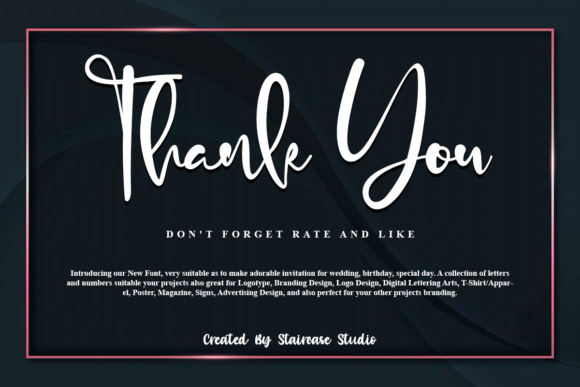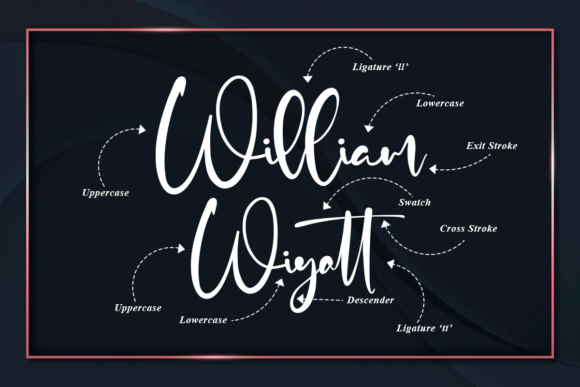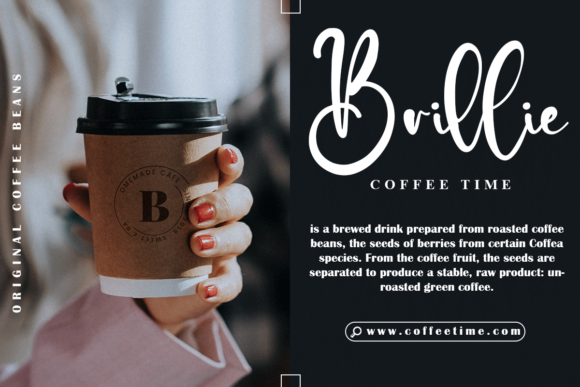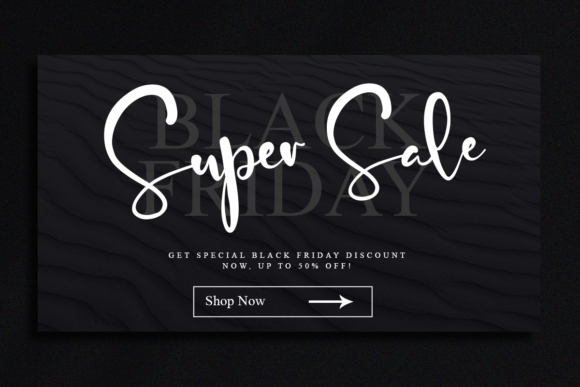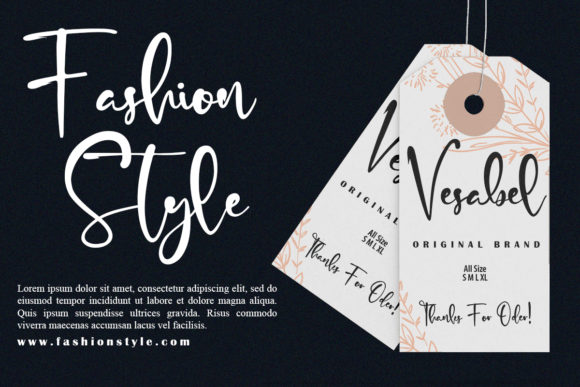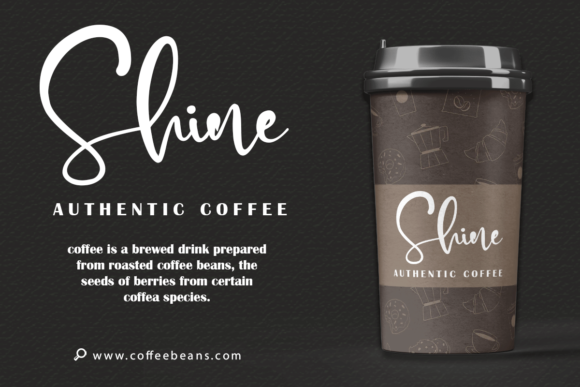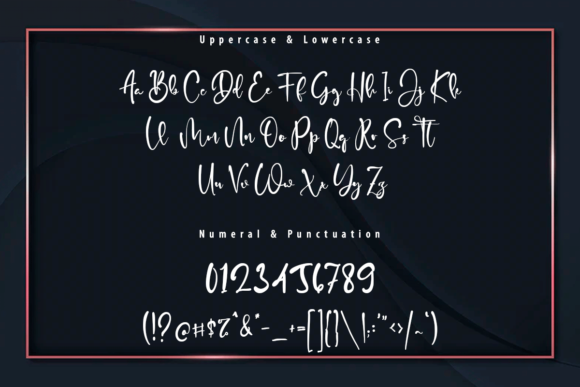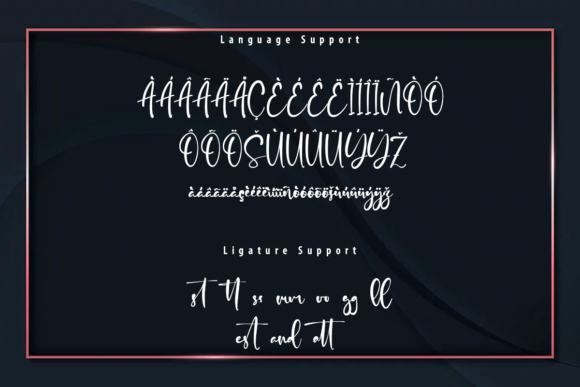
Joice Colin Font
About Joice Colin Font
Joice Colin is a trendy and chic script font that exudes elegance and class. This font was particularly crafted for those who need a beautiful and refreshing look to their designs.